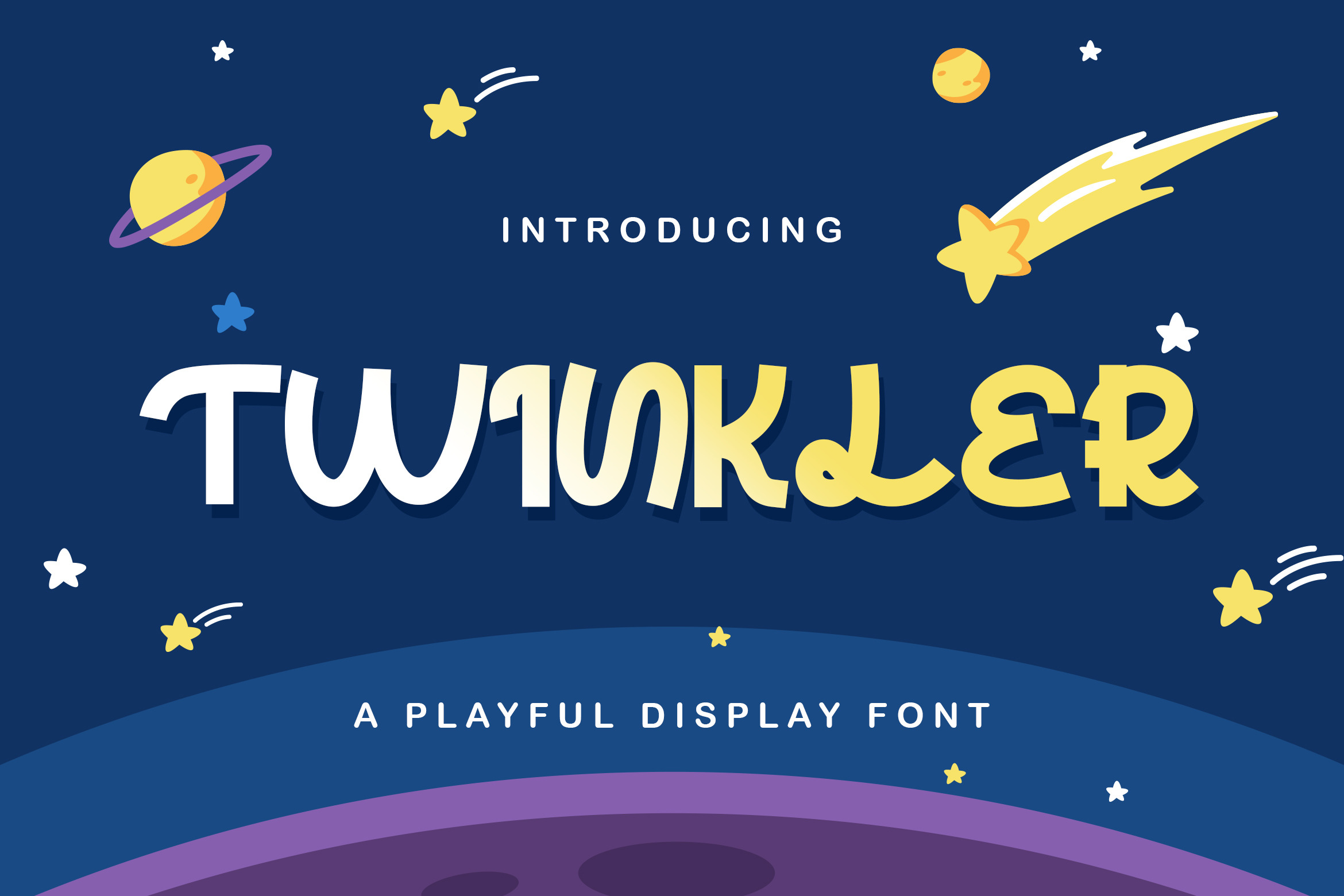
Twinkler Playful Display Font
Twinkler is a Playful Modern Display Sans Serif
Twinkler is a playful and modern sans serif font. It is curved, rounded, and has a unique retro and vintage style, perfect for branding. Use this display font to add that special retro vintage touch to any design idea!. Equipped with all complete characters ranging from uppercase letters, lowercase letters, numbers, punctuation marks, and multi-lingual support, this font is ready to be used in any project. Very suitable for logotype, Stickers, Packaging design, Cricut Project, headlines, brand identity, t-shirt or apparel industry, posters, magazines, books, YouTube, Instagram, websites, or any of your creative design projects.